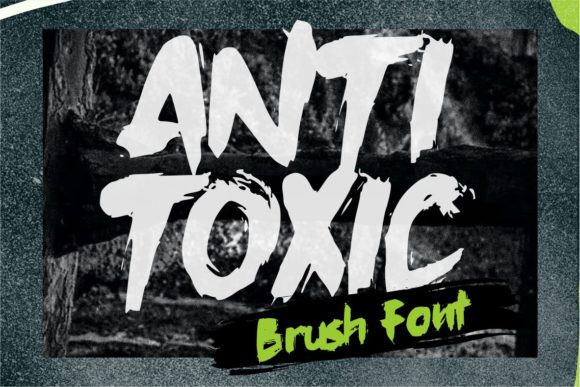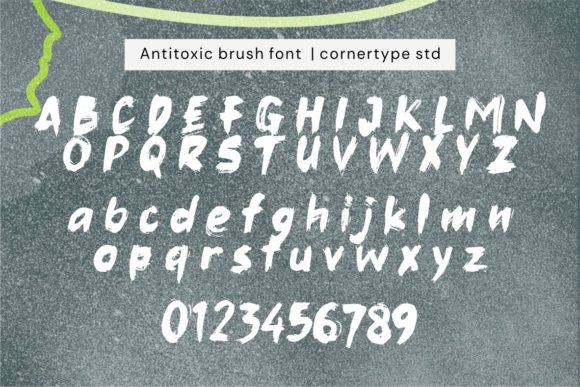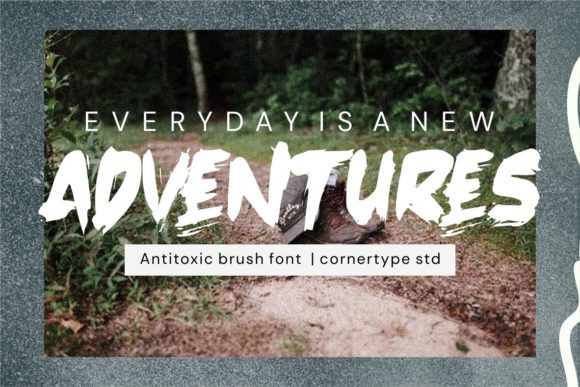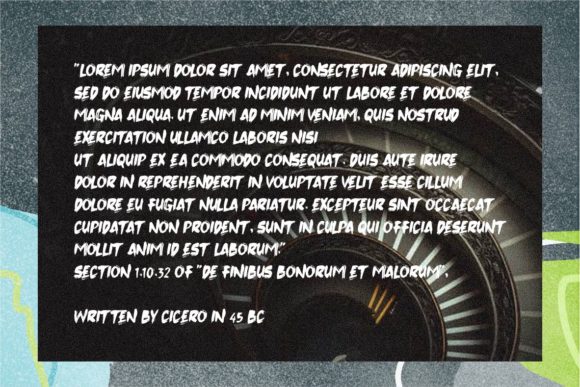
Anti Toxic Font: A Bold Grunge Display Font for Urban Typography
About the Anti Toxic Font
The Anti Toxic Font is here to transform your projects with its distinctive character and style. Anti Toxic is a bold and brushed display font. Rough and dramatic, this font is ideal for any headings, titles and urban designs that you wish to develop.
Its strong, textured strokes make it perfect for impactful headlines, posters, and branding projects needing a rebellious, edgy feel. Think streetwear apparel, music festival promotions, or urban-themed campaigns. Avoid using it for body text or UI elements; its bold nature compromises readability in smaller sizes or continuous blocks of text.
Pairing Anti Toxic with a clean sans-serif like Montserrat or a geometric sans-serif such as Futura will create a strong contrast, balancing its raw energy with a sense of modern order. For a softer contrast, consider a slightly rounded serif like Playfair Display to add a touch of sophistication.
The font’s core personality is undeniably bold and rebellious, conveying a sense of raw energy and streetwise attitude. This makes it unsuitable for projects requiring elegance or subtlety.